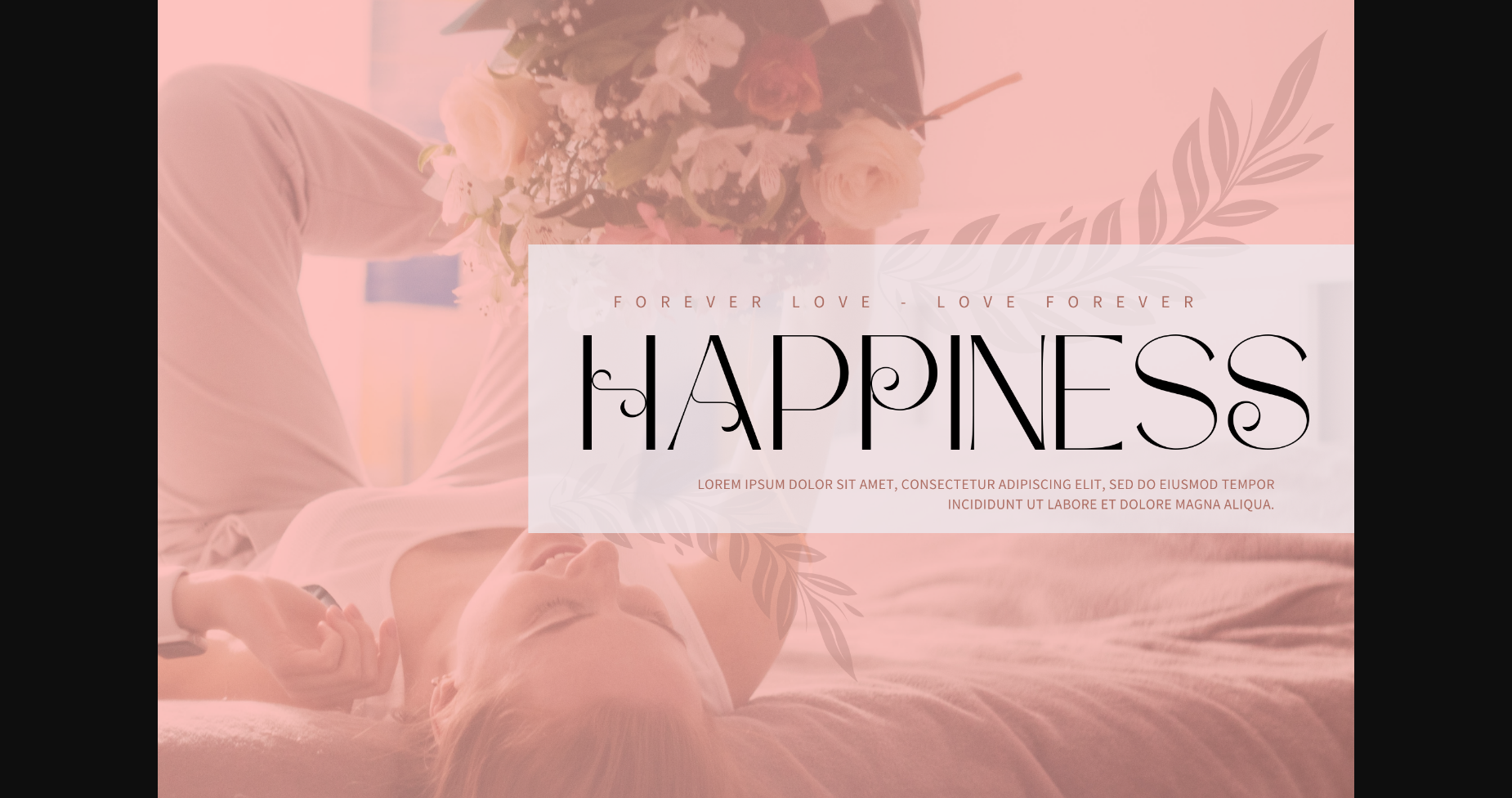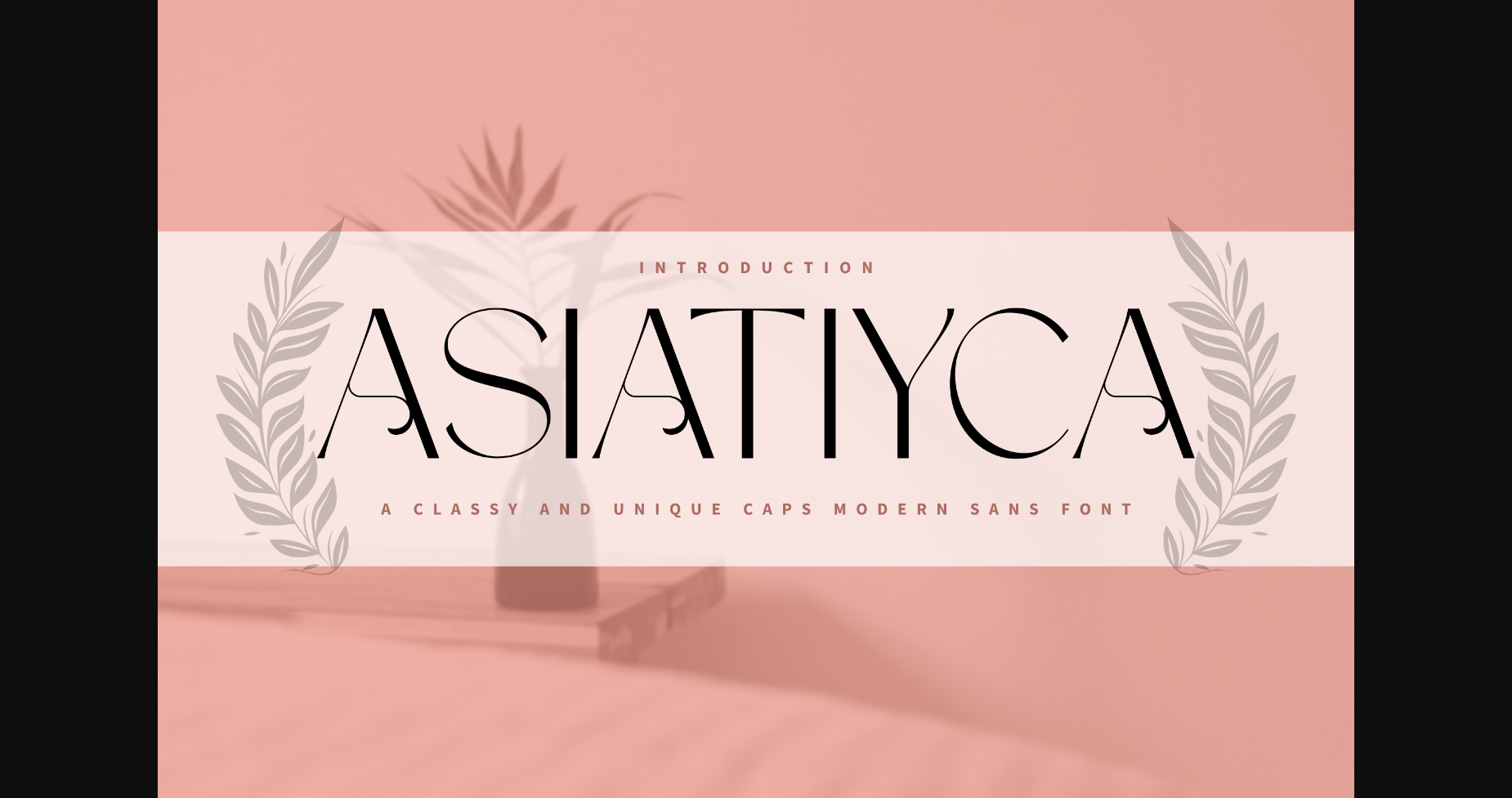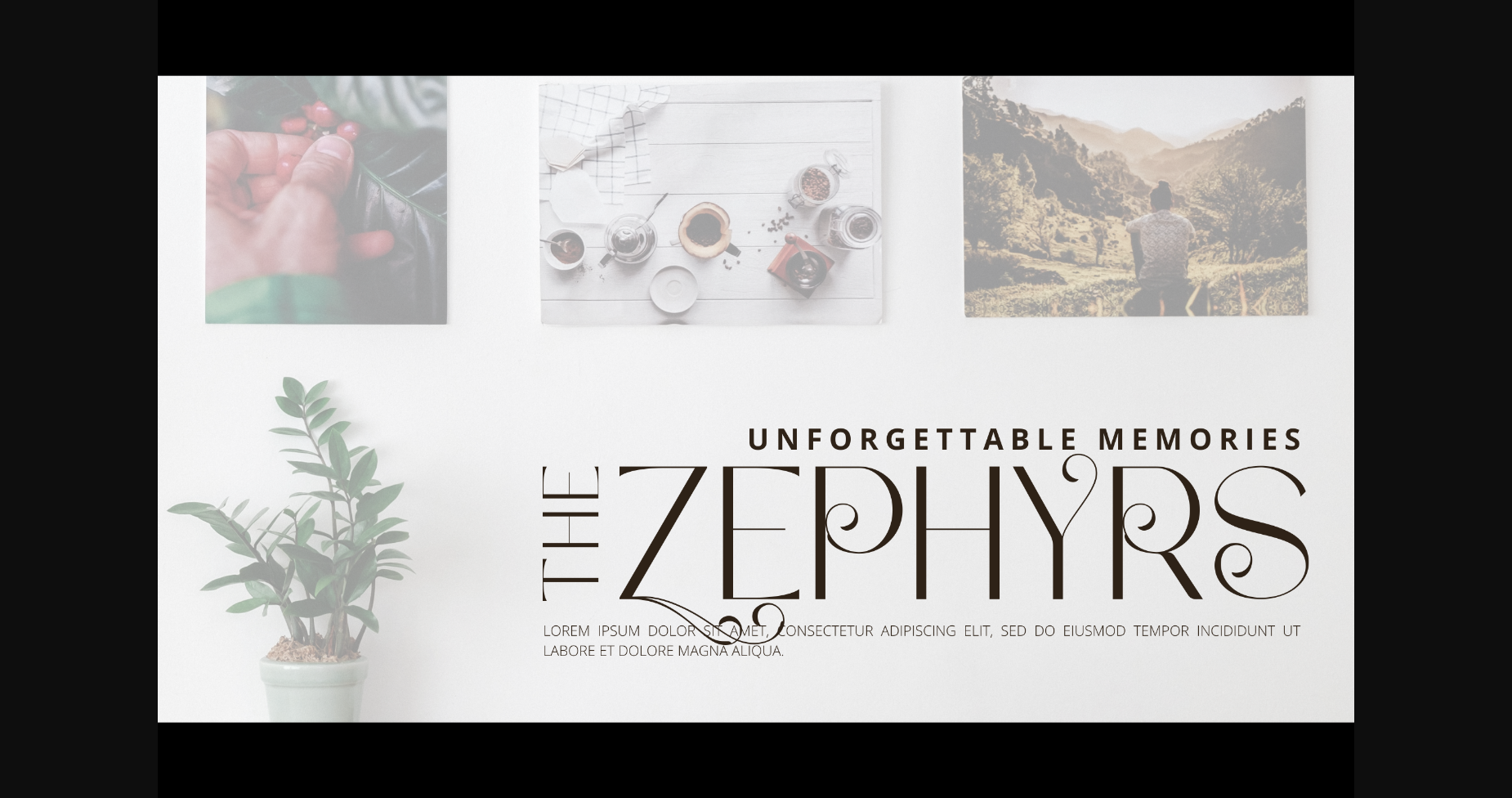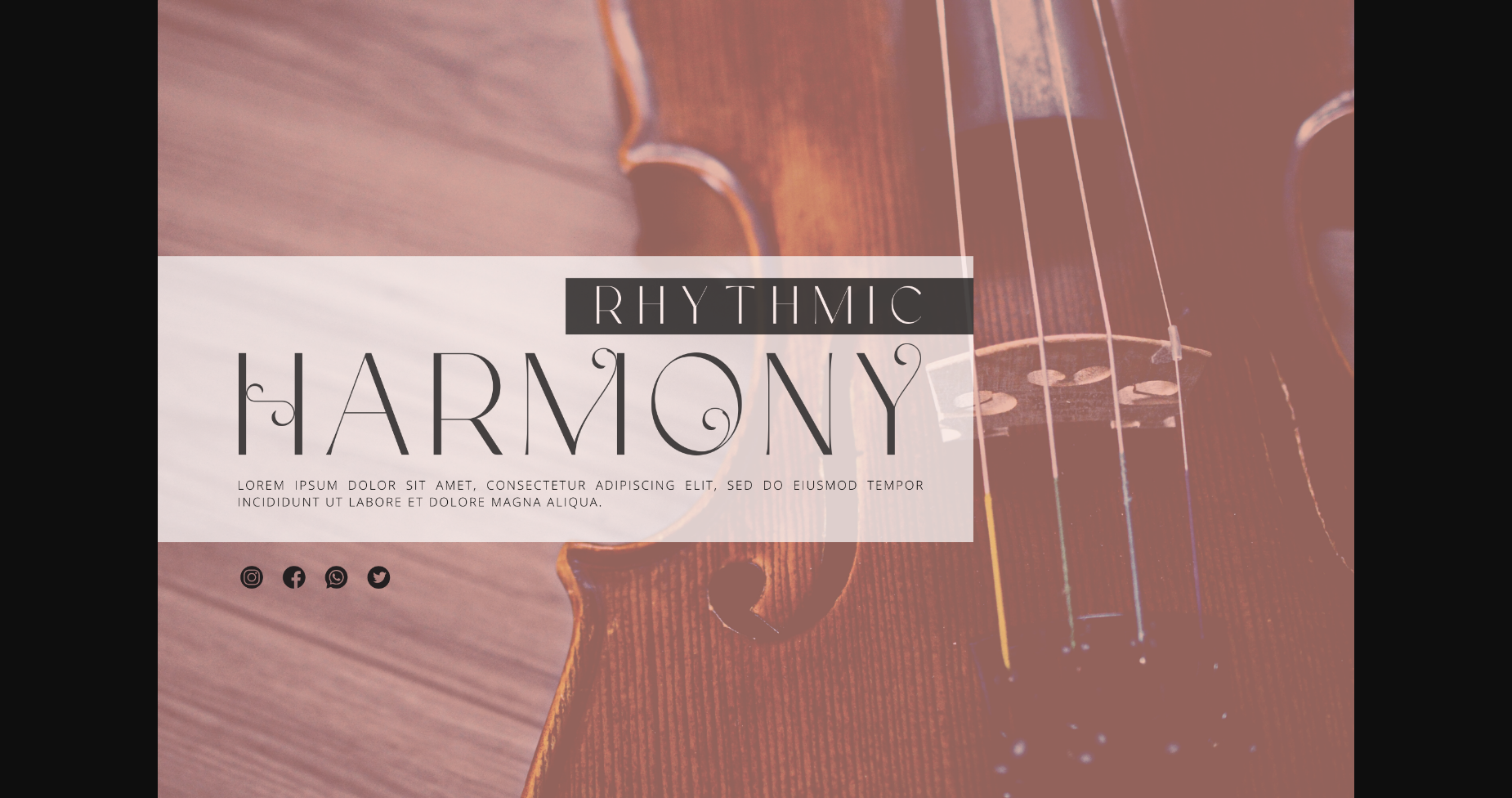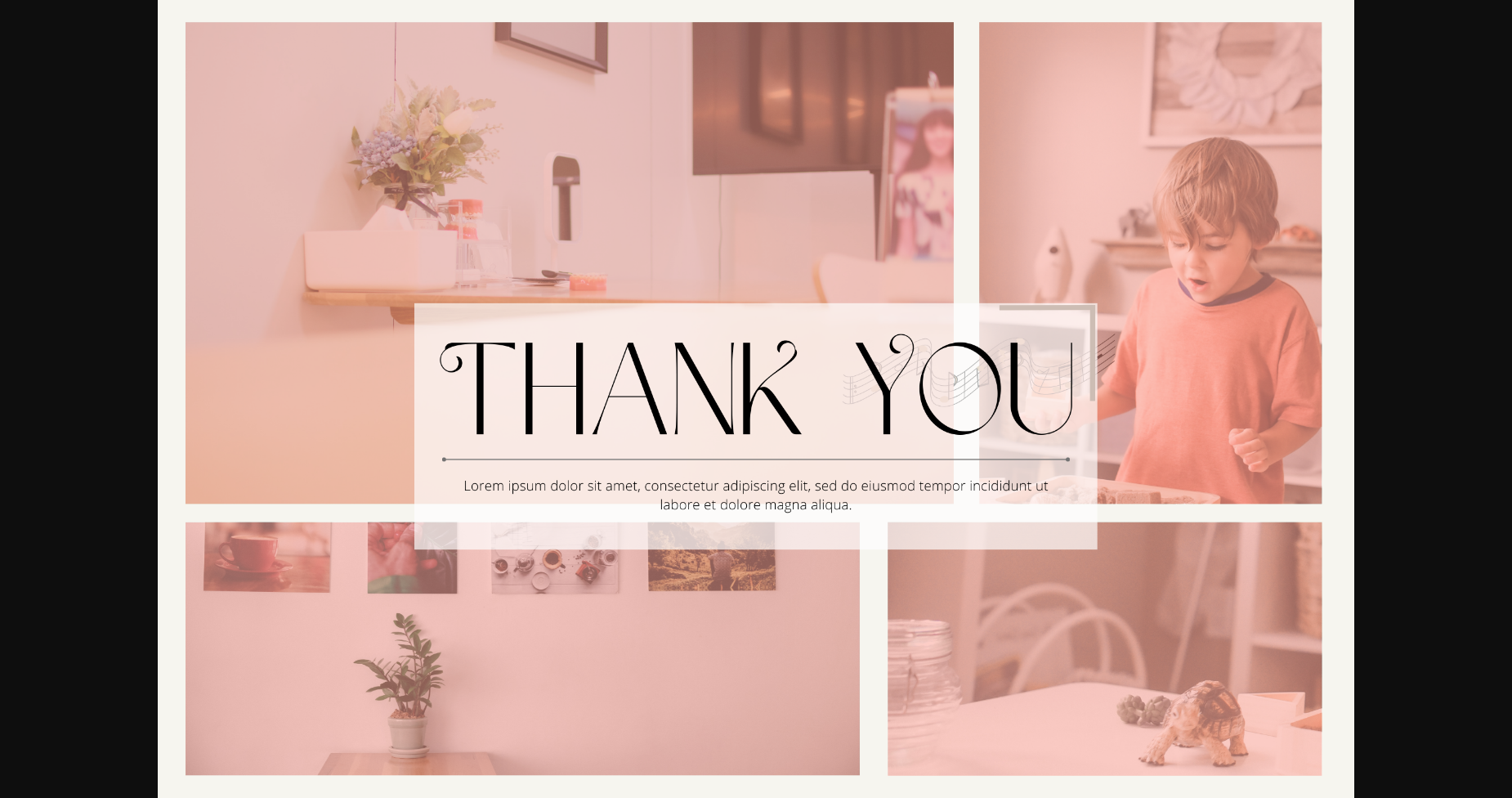
Asiatiyca Font
About Asiatiyca Font
Antonyel is a new sans-serif font that is authentic and suitable for many of your visual needs, like invitations, greeting cards, branding materials, business cards, quotes, posters, and more!